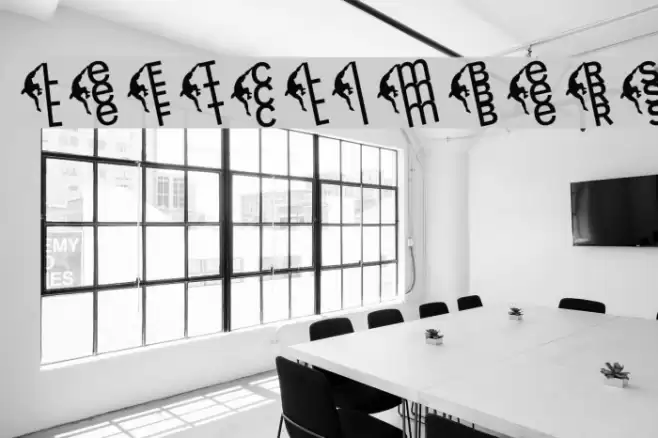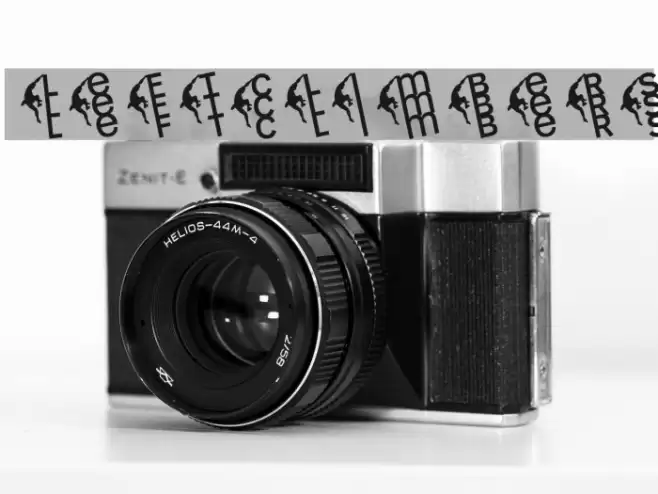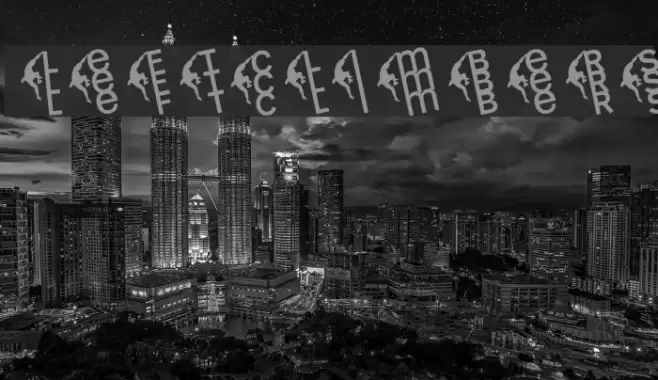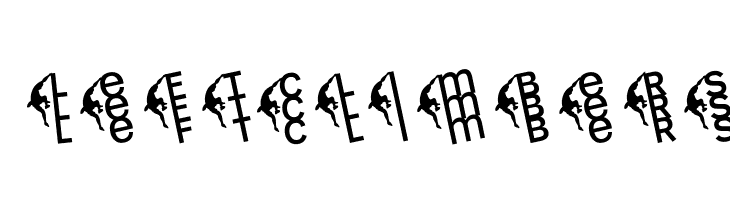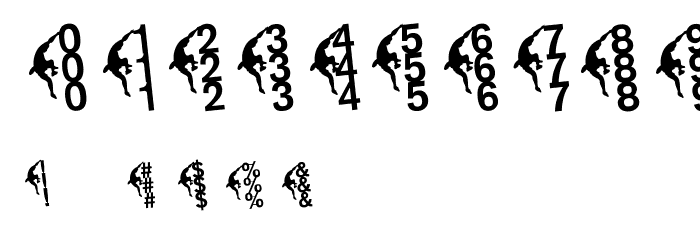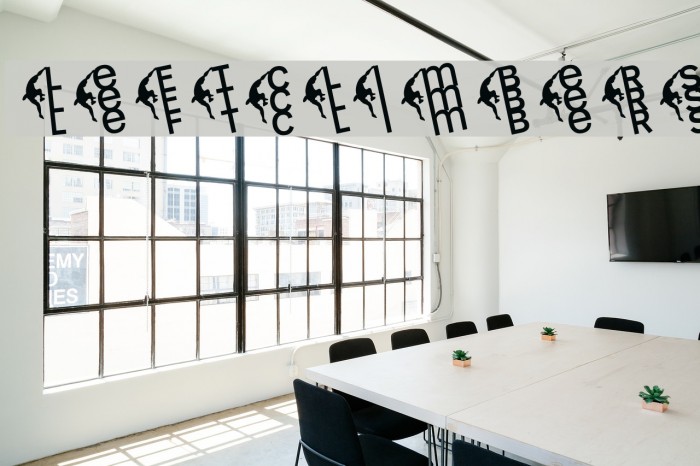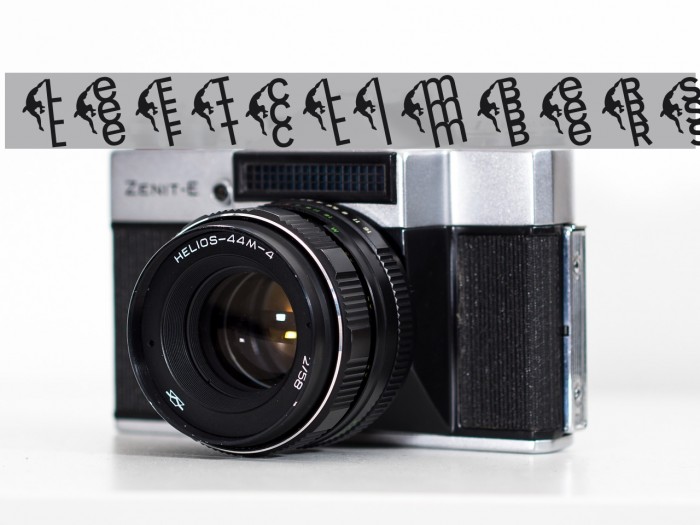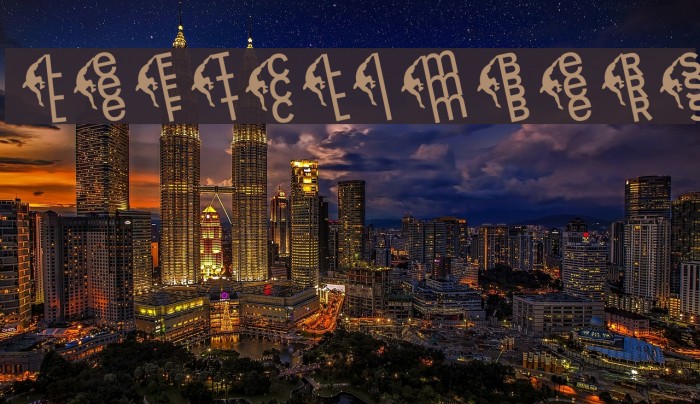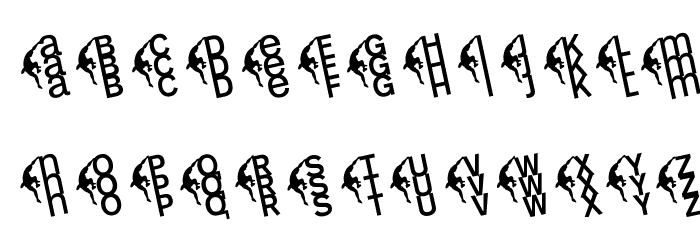
LeftClimbers Font
LeftClimbers Description
This unique and creative font features a silhouette of a climber integrated into each character, giving it a dynamic and adventurous feel. The letters are bold and slightly condensed, with the climber figure adding an element of movement and excitement. The font maintains a consistent style across uppercase, lowercase, numbers, and special characters, making it visually cohesive. The design is playful yet bold, suitable for projects that aim to convey energy and action. The overall appearance is modern and eye-catching, perfect for grabbing attention.
A bold, adventurous font with integrated climber silhouettes from Uncategorized fonts.